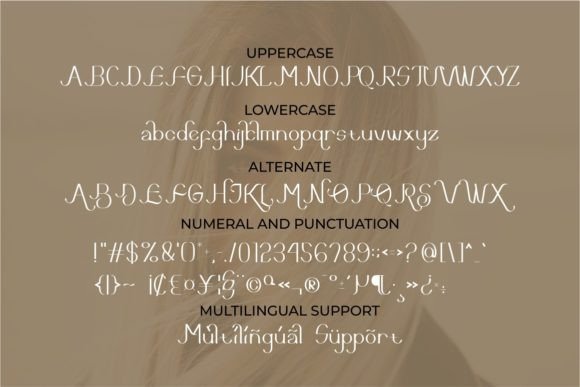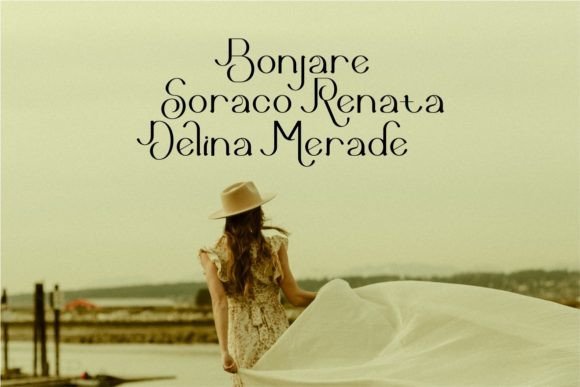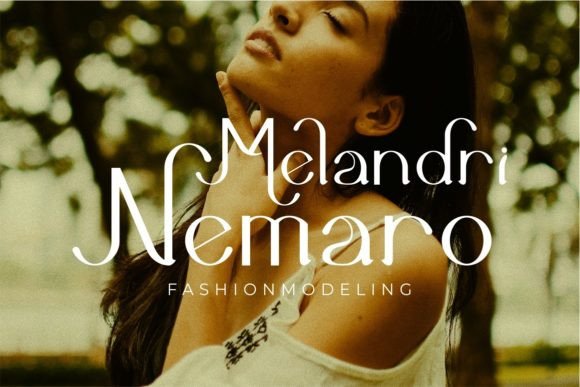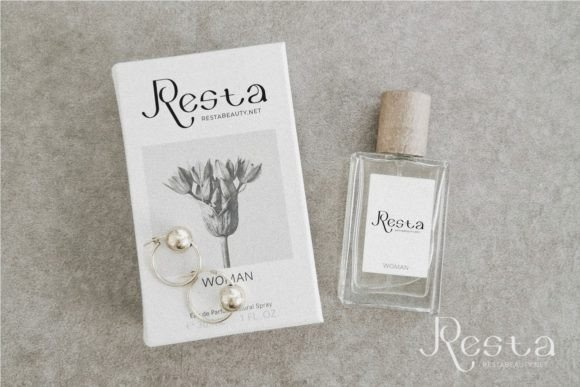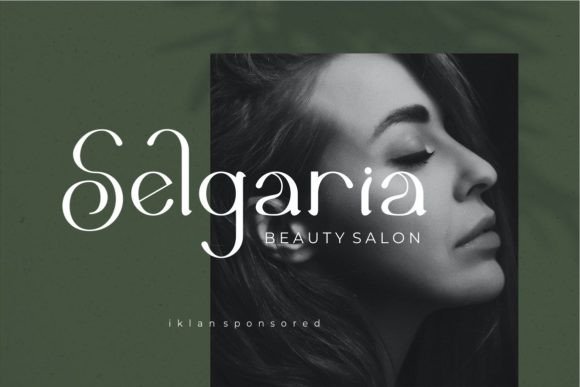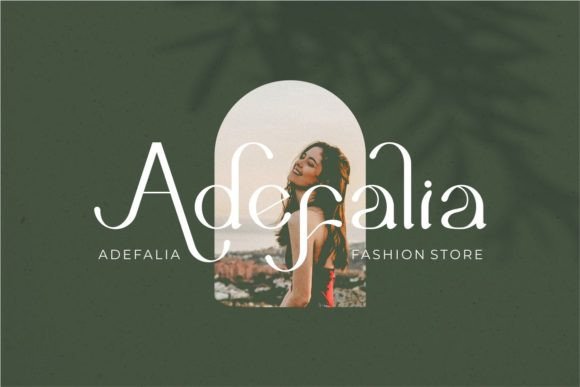
Introducing Behina Font: Elevate Your Designs with Elegance and Sophistication
In the world of typography, fonts play a crucial role in conveying the tone and aesthetic of a design. For those seeking to create luxurious, elegant, and feminine projects, the Behina font is an exceptional choice. This sophisticated, charming serif font is specifically designed to add a fashionable touch to modern, chic designs. In this article, we’ll explore the features and benefits of Behina font, and how it can elevate your designs to new heights.
The Essence of Behina Font
Behina font is a meticulously crafted serif font that exudes elegance and refinement. Its sophisticated charm is perfect for designers and crafters looking to create high-end designs that convey luxury and femininity. The font’s classic serif lines and subtle flair at the terminals evoke a sense of tradition, while its clean and crisp lines ensure a modern feel.
Key Features of Behina Font
- Sophisticated Serif Design: Behina font boasts a classic serif design with subtle flair at the terminals, giving it a refined and elegant look.
- Fashionable Touch: The font’s clean lines, balanced proportions, and delicate curves create a fashionable and modern aesthetic.
- Luxury and Elegance: Behina font is perfect for luxury, elegant, and feminine projects, making it ideal for high-end branding, packaging, and editorial designs.
- Versatility: This font is suitable for a wide range of design applications, from digital platforms to print materials.
Use Cases for Behina Font
Behina font is an excellent choice for various design projects, including:
- Luxury Branding: Create a sophisticated brand identity with Behina font, perfect for high-end fashion, beauty, and lifestyle brands.
- Elegant Editorial Designs: Use Behina font to add a touch of elegance to magazines, editorials, and books.
- Fashion Packaging: Elevate your packaging designs with Behina font, ideal for luxury product packaging and labels.
- Digital Platforms: Behina font is optimized for digital use, making it perfect for websites, social media graphics, and digital advertising.
Benefits of Using Behina Font
By incorporating Behina font into your designs, you can:
- Convey Luxury and Sophistication: Behina font instantly adds a touch of elegance and refinement to your designs.
- Stand Out from the Crowd: The font’s unique and fashionable design ensures your projects will stand out in a crowded design landscape.
- Enhance Brand Identity: Behina font helps create a cohesive and sophisticated brand image, perfect for luxury brands.
Tips for Using Behina Font Effectively
To get the most out of Behina font, consider the following tips:
- Pair with Neutral Colors: Combine Behina font with neutral colors to create a clean and elegant design.
- Experiment with Font Sizes: Play with different font sizes to create visual hierarchy and add depth to your designs.
- Add Decorative Elements: Use Behina font in conjunction with decorative elements, such as illustrations or graphics, to create a luxurious feel.
Behina font is a stunning serif font that offers a perfect blend of elegance, sophistication, and fashionability. With its classic design and modern feel, it’s an excellent choice for luxury, elegant, and feminine projects. Whether you’re a designer, crafter, or DIY enthusiast, Behina font is sure to elevate your designs and help you create stunning, high-end visuals.